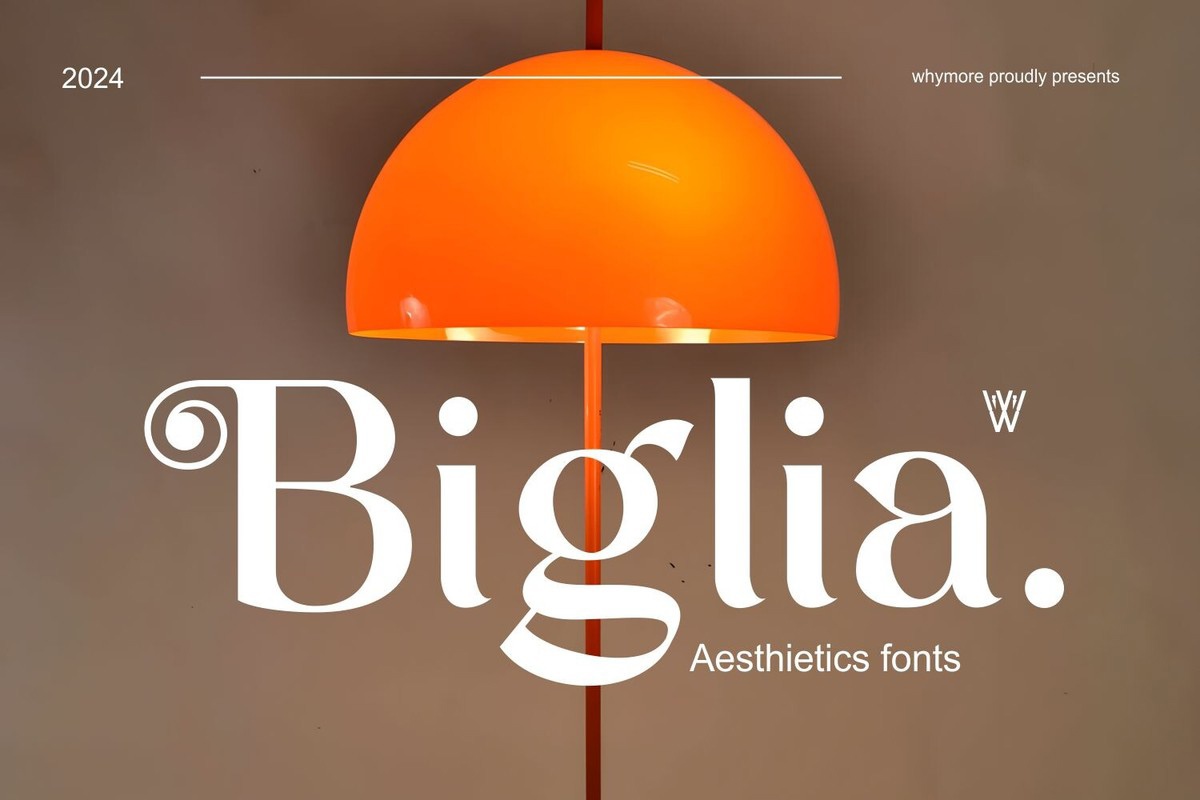
Biglia Font
Biglia Font is perfect for jewelry brand identity, luxury watch marketing, premium fashion labels, sophisticated beauty campaigns, high-end boutique signage, elegant event invitations, refined hospitality branding, exclusive spa materials, cultured art gallery displays, and upscale lifestyle magazines.
Biglia Font is exciting because it captures the essence of refined luxury and timeless sophistication, creating a typeface that embodies the elegance of precious gems and the craftsmanship of fine jewelry. This font brings sparkling sophistication and luxurious appeal to any project, making it ideal for premium brands that want to convey exclusivity, refinement, and the brilliant beauty of luxury craftsmanship. Its polished character and jewel-like precision create an atmosphere of precious elegance that resonates with discerning audiences who appreciate the finest things in life.
Biglia Font family includes light, regular, medium, bold, and black weights, each available in roman and italic styles with luxury ornaments and precious decorative elements, providing designers with comprehensive tools for creating sophisticated luxury typography and premium brand experiences.
This exquisite luxury typeface combines jewelry-inspired aesthetics with contemporary design excellence, making Biglia Font Free Download a perfect choice for projects celebrating luxury craftsmanship and precious beauty. The font's meticulously crafted letterforms feature polished proportions and gem-like styling that reflect the precision and artistry of fine jewelry making and luxury goods creation.
Whether you're designing high-end jewelry branding, luxury fashion campaigns, or exclusive hospitality materials, Biglia Font delivers unmatched luxury authenticity and precious appeal. The font excels in both intimate luxury applications and grand retail environments where sophistication and exclusivity create memorable luxury shopping experiences.
Luxury brand professionals choose Biglia Font for its ability to instantly communicate precious quality and sophisticated craftsmanship while creating emotional connections with affluent customers seeking authentic luxury experiences. The font's jewel-like character makes it particularly effective for fine jewelry stores, luxury watch brands, and premium fashion houses.
Each character reflects the sparkling brilliance of precious gems, featuring polished construction and refined proportions that create typography as beautiful and valuable as diamonds, pearls, and the finest luxury craftsmanship.